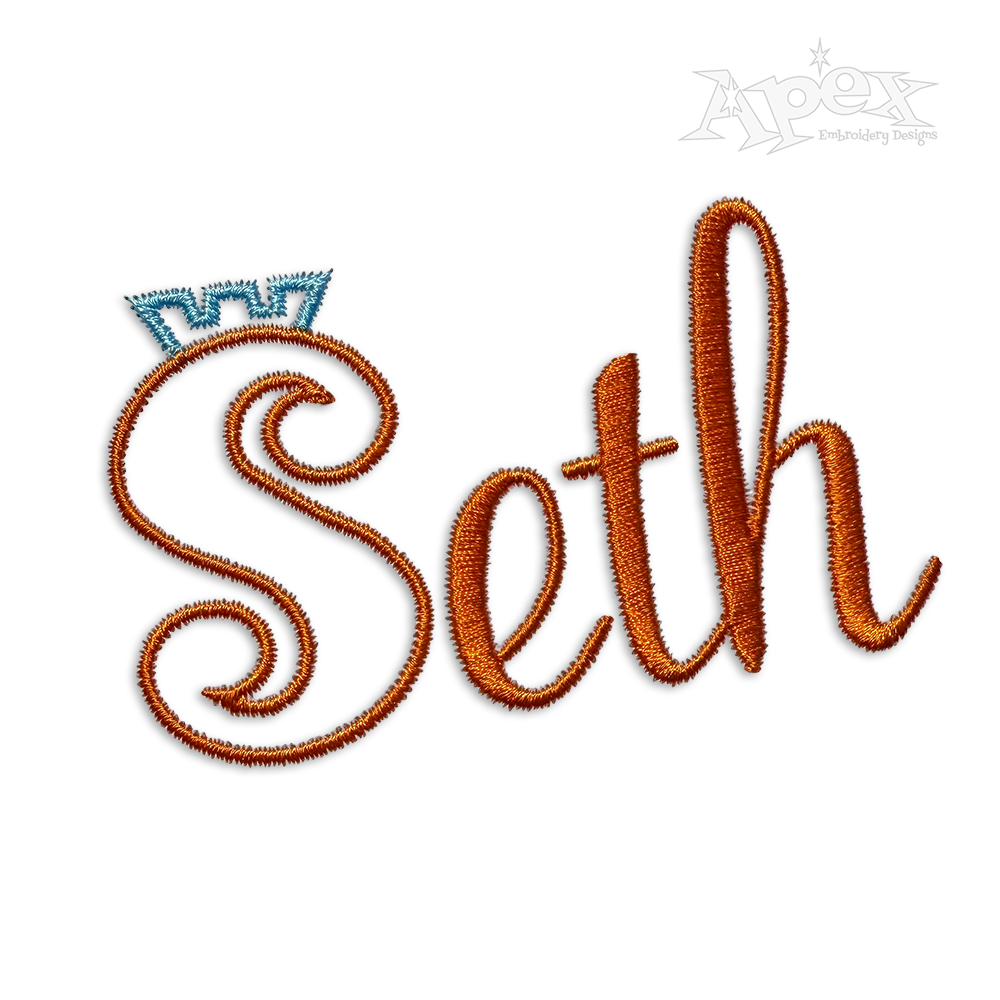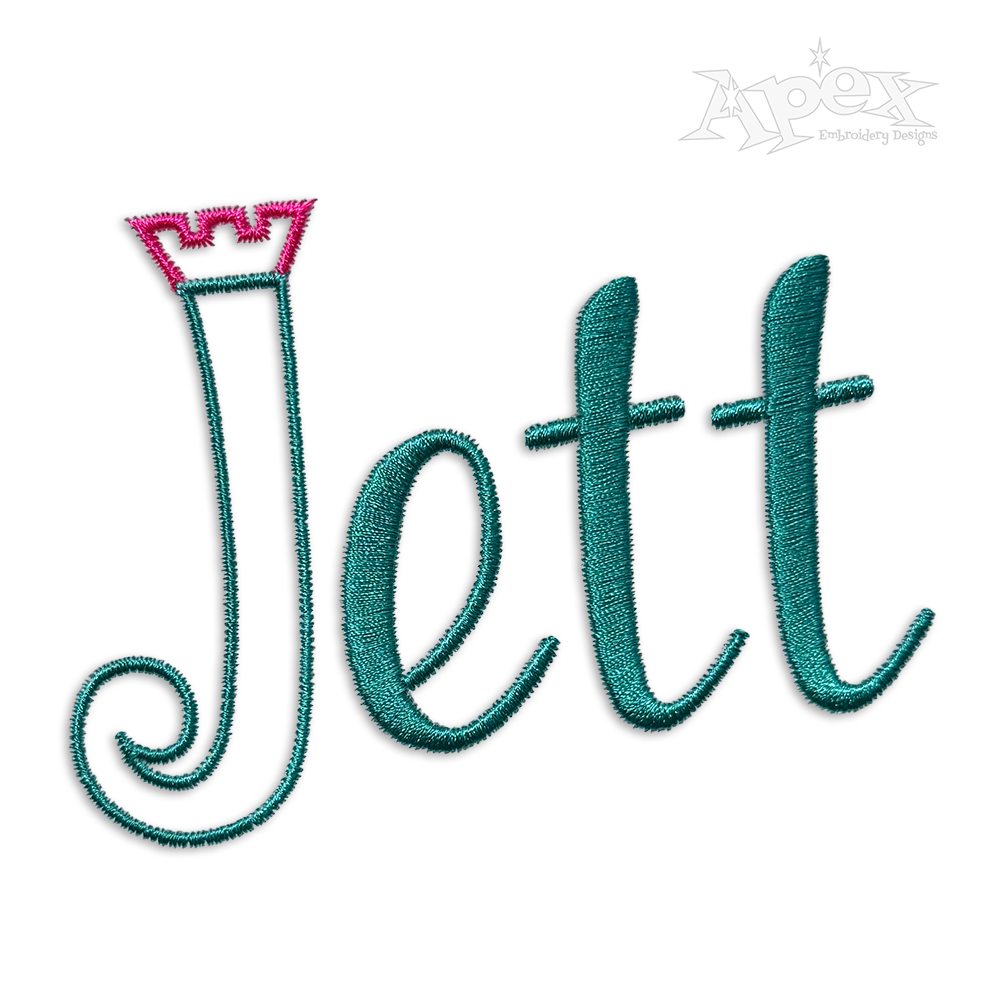
Royal Princess Embroidery Font
Conceived from the timeless charm of fairy-tale manuscripts and aristocratic heraldry, the Royal Princess Embroidery Font brings an aura of regal poise to your needlework. Every curve in this alphabet was hand-digitized to capture the flowing, romantic grace of court calligraphy, balancing stately posture with whimsical, undulating swashes. When stitched, the luminous satin contours capture the ambient light, turning personalized gifting and bespoke heirloom projects into treasured family keepsakes reminiscent of royal nursery traditions and couture bridal ateliers.
Project Ideas for Royal Princess Embroidery Font
At an expansive 2.5-inch scale, these lowercase characters and numbers command attention while retaining an airy, delicate charm. Consider weaving them into:
- Heirloom Nursery Linens: Stitch a newborn's name across plush pima cotton blankets, scalloped crib skirts, or milestone keepsake pillows.
- Bridal Trousseau & Robes: Personalize silky bridal party robes, velvet ring-bearer cushions, or romantic honeymoon loungewear.
- Luxury Table Linens: Accent crisp linen dinner napkins and runners for festive celebrations, bridal showers, or celebratory high teas.
- Bespoke Resort & Daywear: Embellish the pockets of structured linen shirts, canvas resort totes, or sun hats with refined, lowercase initialing.
- Milestone Birthday Keepsakes: Use the sweeping, majestic numerals to celebrate first birthdays or anniversaries on fine knit rompers and quilted jackets.
Proper placement allows the flowing curves of this regal font to drape naturally with the fabric:
- Napkin Corner Diagonals: Angle a single lowercase monogram along the bottom-right mitred corner, resting 1.5 inches above the hemstitch for classical dining elegance.
- Center-Chest Garment Embellishment: Center full names or numeric dates across children's pullovers, cardigans, or bridesmaid loungewear for a balanced, eye-catching focal point.
- Cuff & Sleeve Details: Position numbers or subtle monogram sequences along sleeve hems or robe cuffs for an understated touch of personalized luxury.
- Blanket Flanges & Pillow Borders: Frame crib quilts and boudoir throw pillows by tucking names just inside the piped edging or decorative trim.
Royal Princess Embroidery Font Craft & Letterform Details
What distinguishes the Royal Princess Embroidery Font is its structural harmony. Rather than relying on rigid geometric angles, each glyph unfolds with organic movement. The 2.5-inch scale gives the satin stitch columns ample room to breathe, showcasing graduated widths that taper effortlessly into delicate, featherweight terminals. We specifically engineered the underlay foundation to anchor firmly into textured fabrics, preventing delicate loops from sinking into plush terry, fleece, or lofty linen weaves. The accompanying numerals mirror this majestic cadence, featuring gently arched ascenders and grounded bases that make date markers look like historic royal crests. Every stitch path is optimized to reduce jump stitches and preserve the continuous sheen of your embroidery thread from start to finish.